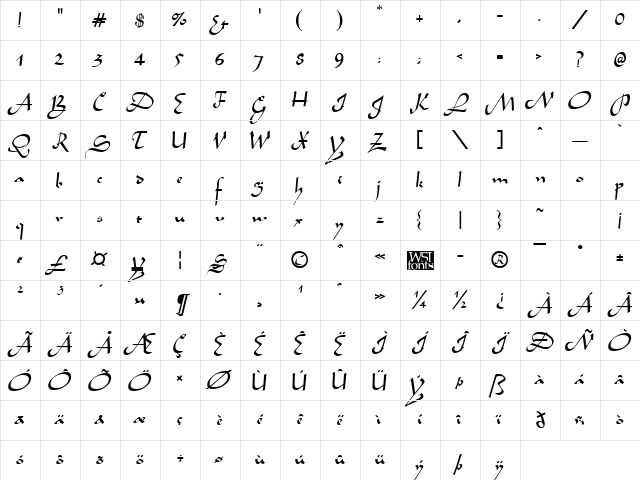
Aladdin Regular
Aladdin Family
Aladdin Regular
Complete Aladdin Regular glyph index. Displaying only characters natively supported by Aladdin Regular font.
Design Context for Aladdin
Aladdin is a composed and adaptable typeface that performs quietly and consistently across a wide range of design contexts.